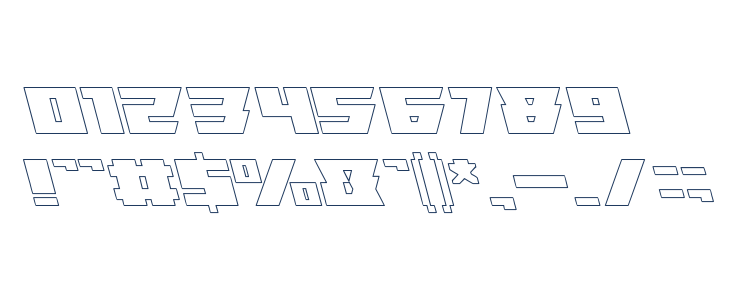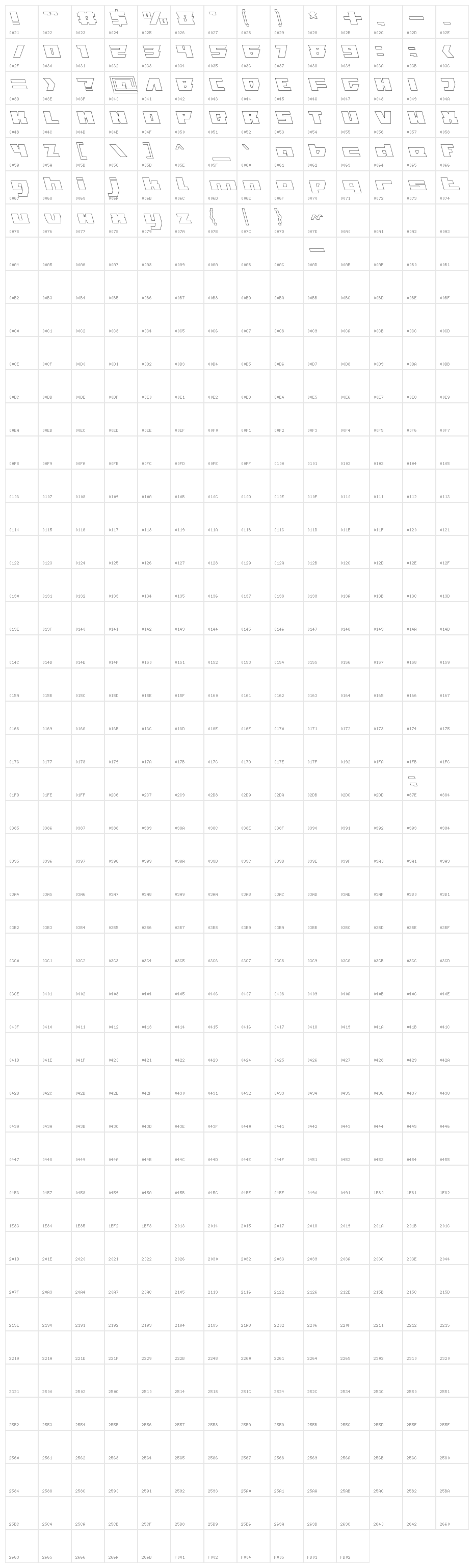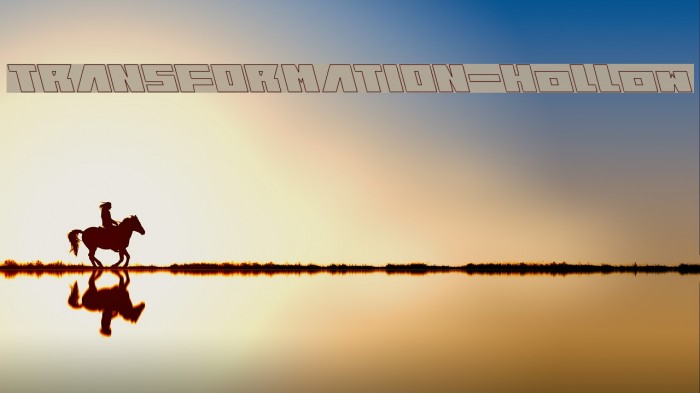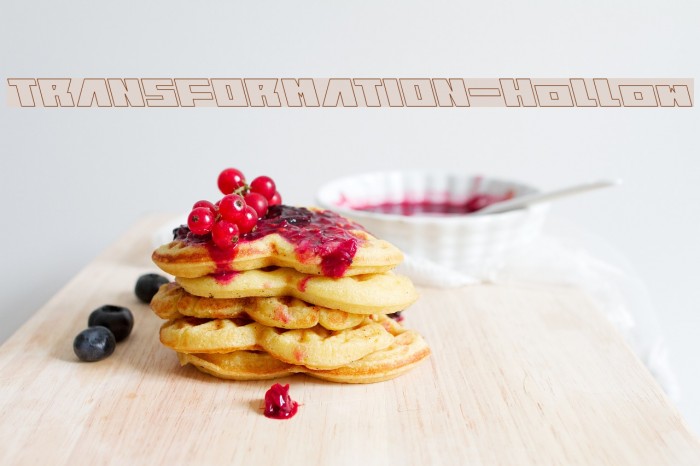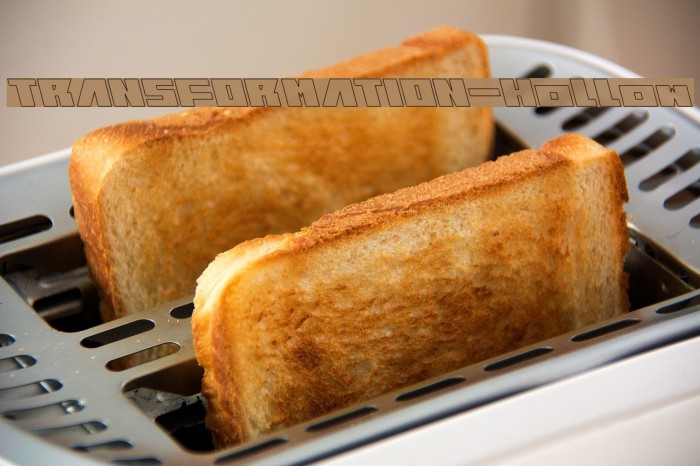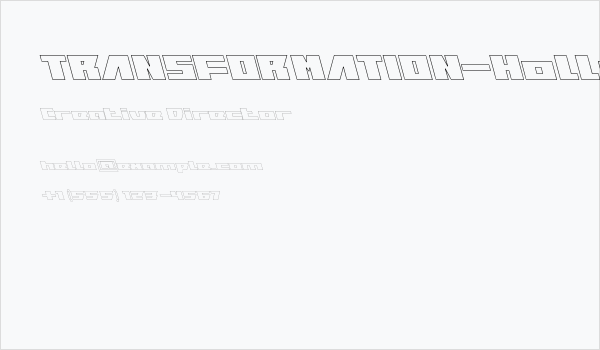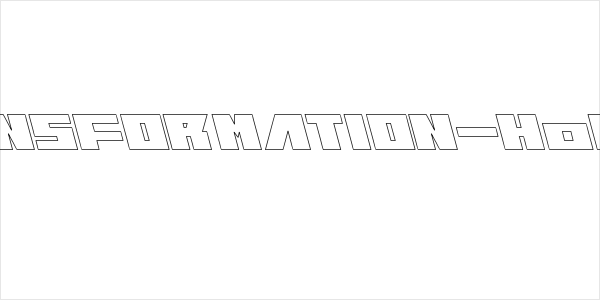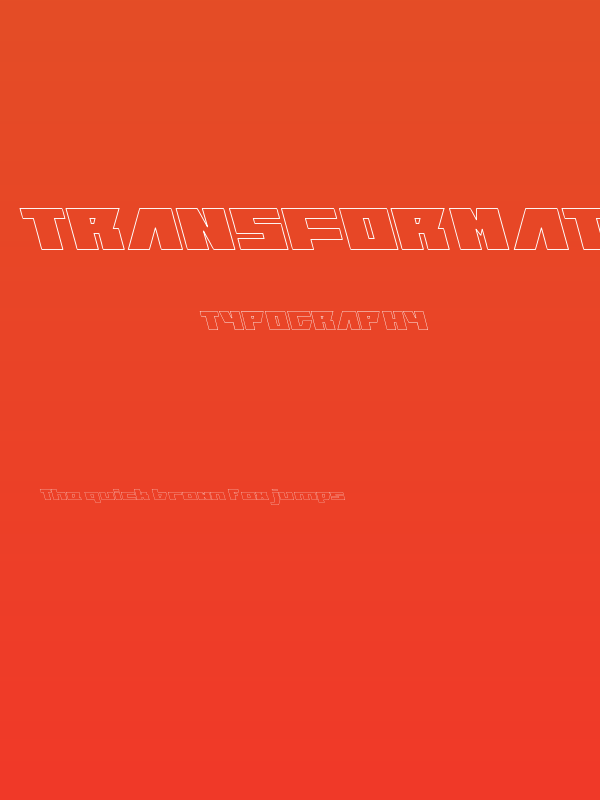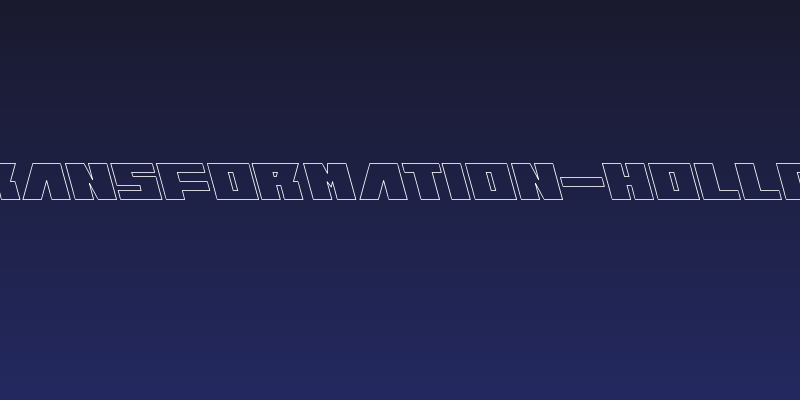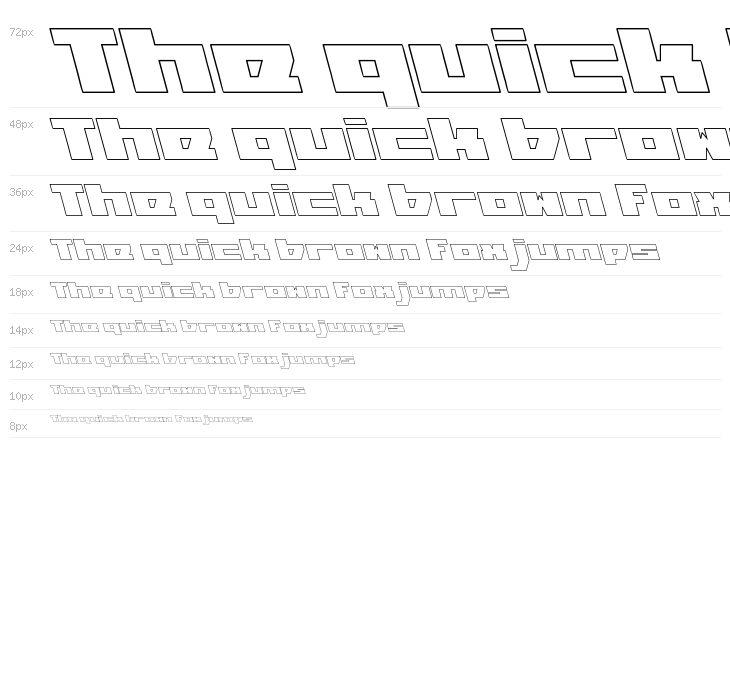
TRANSFORMATION-Hollow Font
TRANSFORMATION-Hollow Description
This font features a bold, geometric design with a hollow interior, creating a striking and modern appearance. The characters are constructed with sharp angles and straight lines, giving them a futuristic and digital feel. The uppercase and lowercase letters maintain a consistent style, with uniform thickness and spacing. Numbers and special characters are designed to match the overall aesthetic, ensuring a cohesive look across all text elements. The hollow nature of the font allows for creative use of background colors or textures to show through, adding an extra layer of visual interest.
Proposed ProjectsIdeal for digital art, futuristic branding, tech-themed posters, and video game graphics.